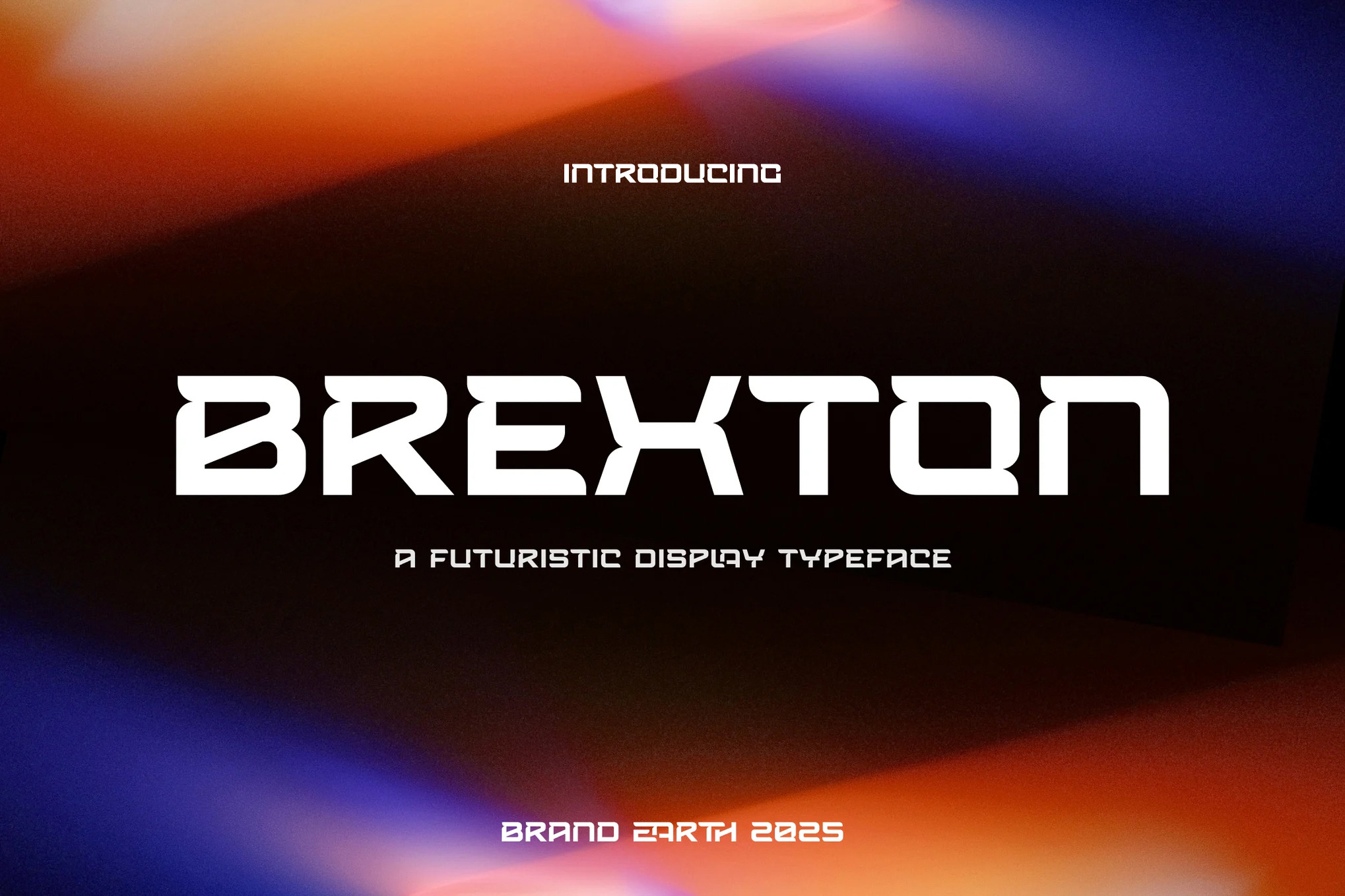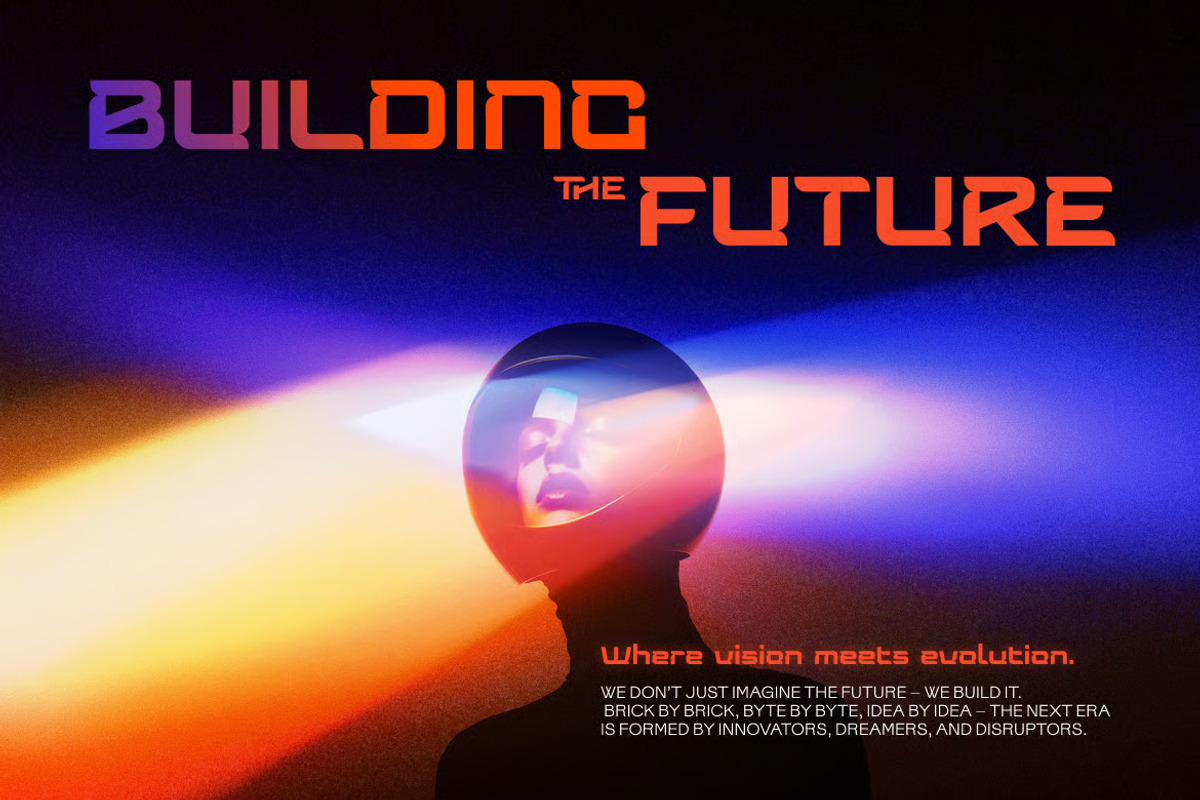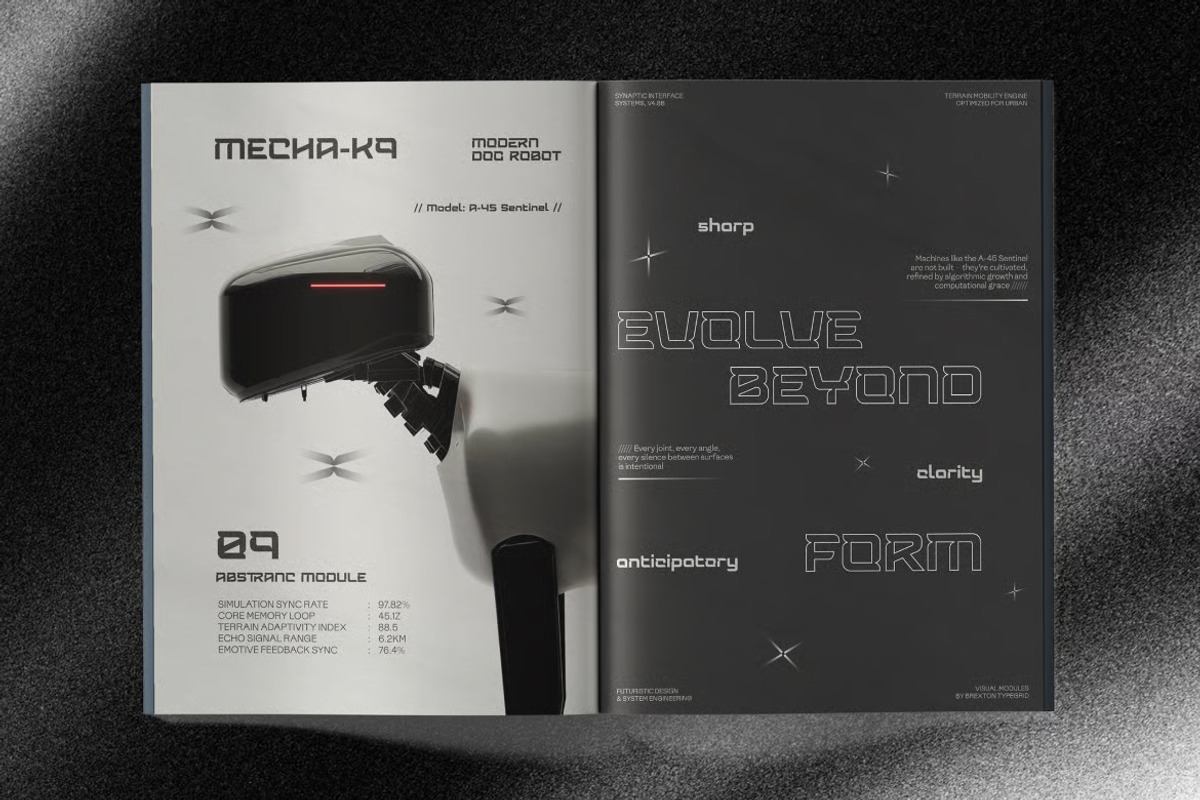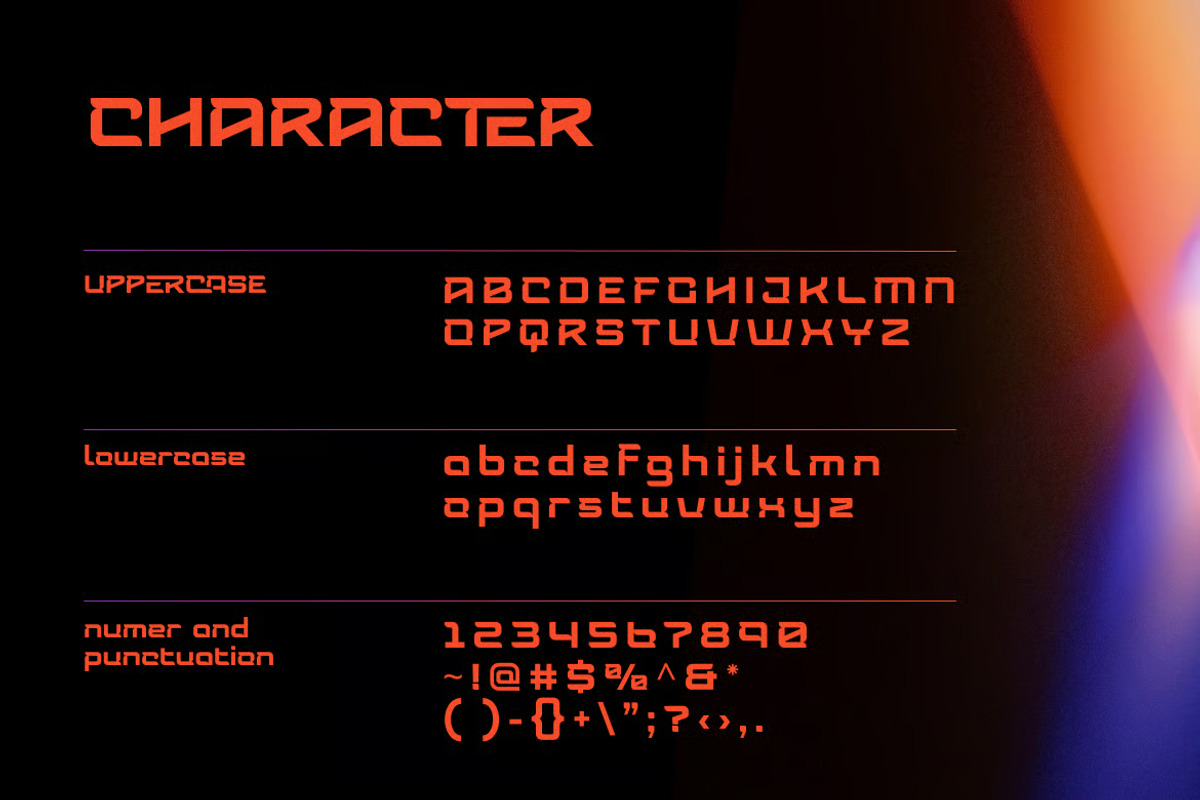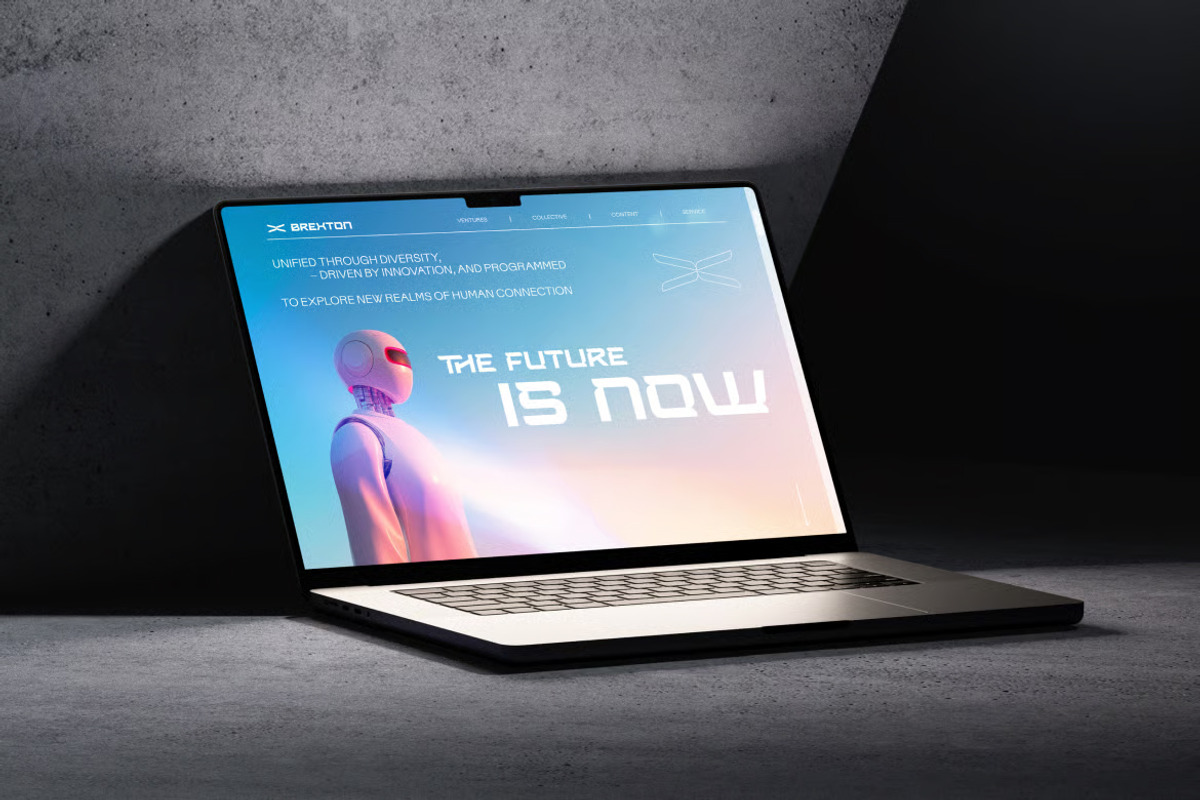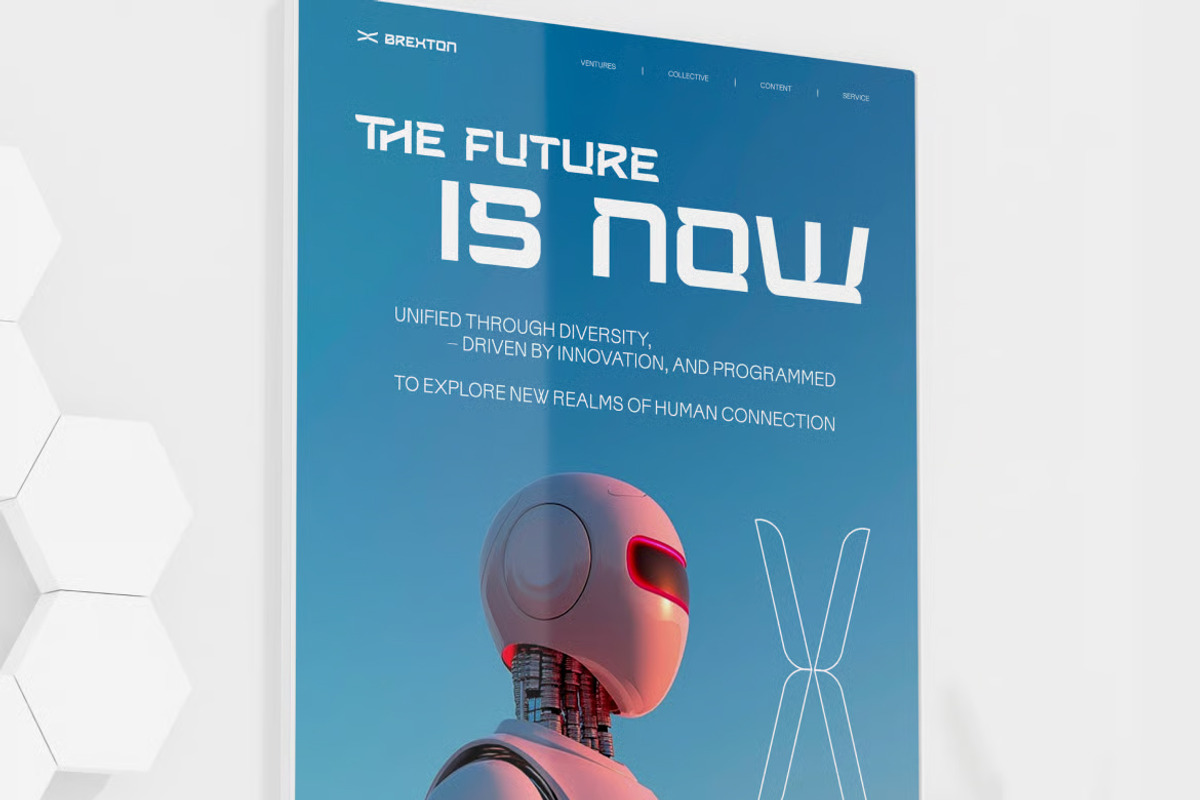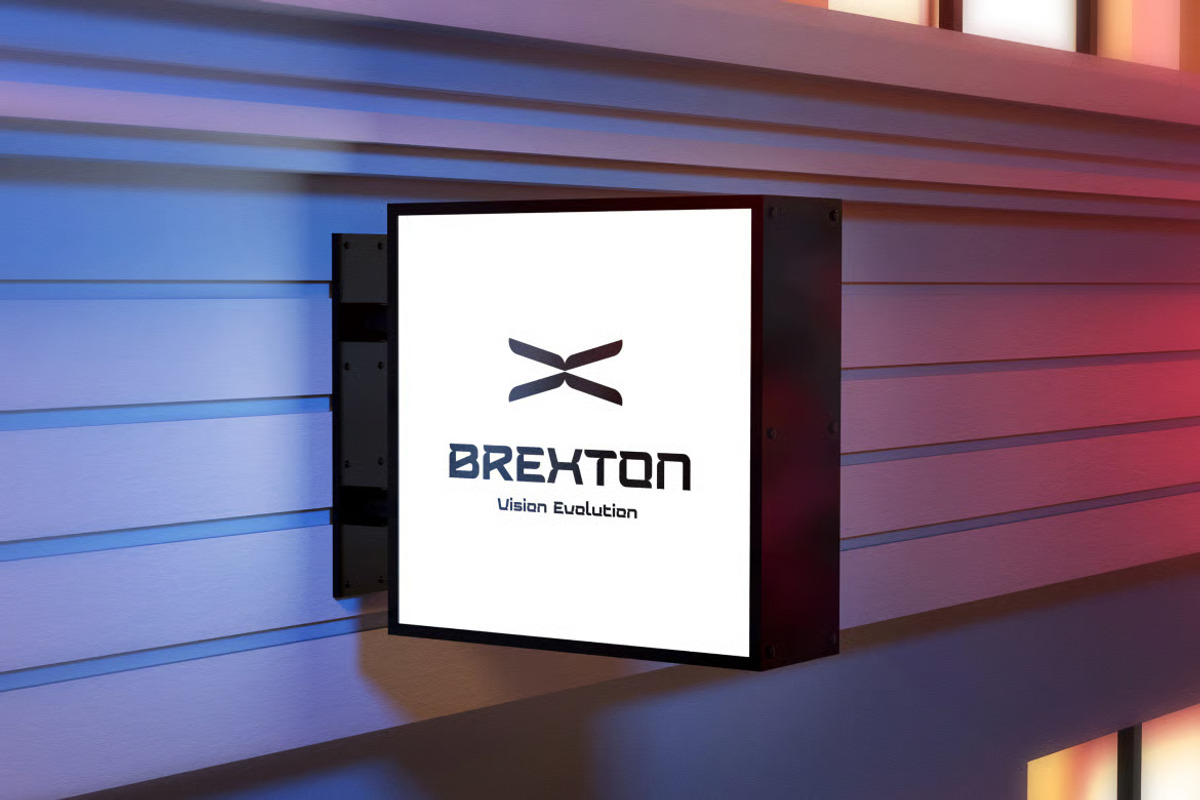
Brexton – Futuristic Display Font
Brexton is a futuristic display typeface that radiates confidence and modernity, tailored for tech-forward design. The font’s aesthetic is unapologetically bold with a distinctly innovative edge, designed to elevate high-impact visuals and communicate cutting-edge ideas.
Perfect for use in immersive digital experiences, NFT branding, VR product launches, or AI technology presentations, Brexton captures the essence of futuristic visual storytelling. The geometric structure of its characters — featuring squared curves, monospaced proportions, and minimalist cuts — creates a clean, modern appearance while maintaining a strong presence.
Its best use cases include headline branding, product packaging for electronics or robotics, web design for high-tech companies, editorial layouts for innovation magazines, movie titles, gaming interfaces, sci-fi posters, and startup pitch decks.
Whether you're building the identity of a revolutionary product or crafting a high-tech event campaign, Brexton instantly delivers a look that feels next-gen.
Uppercase & Lowercase characters
Numeral & Punctuations